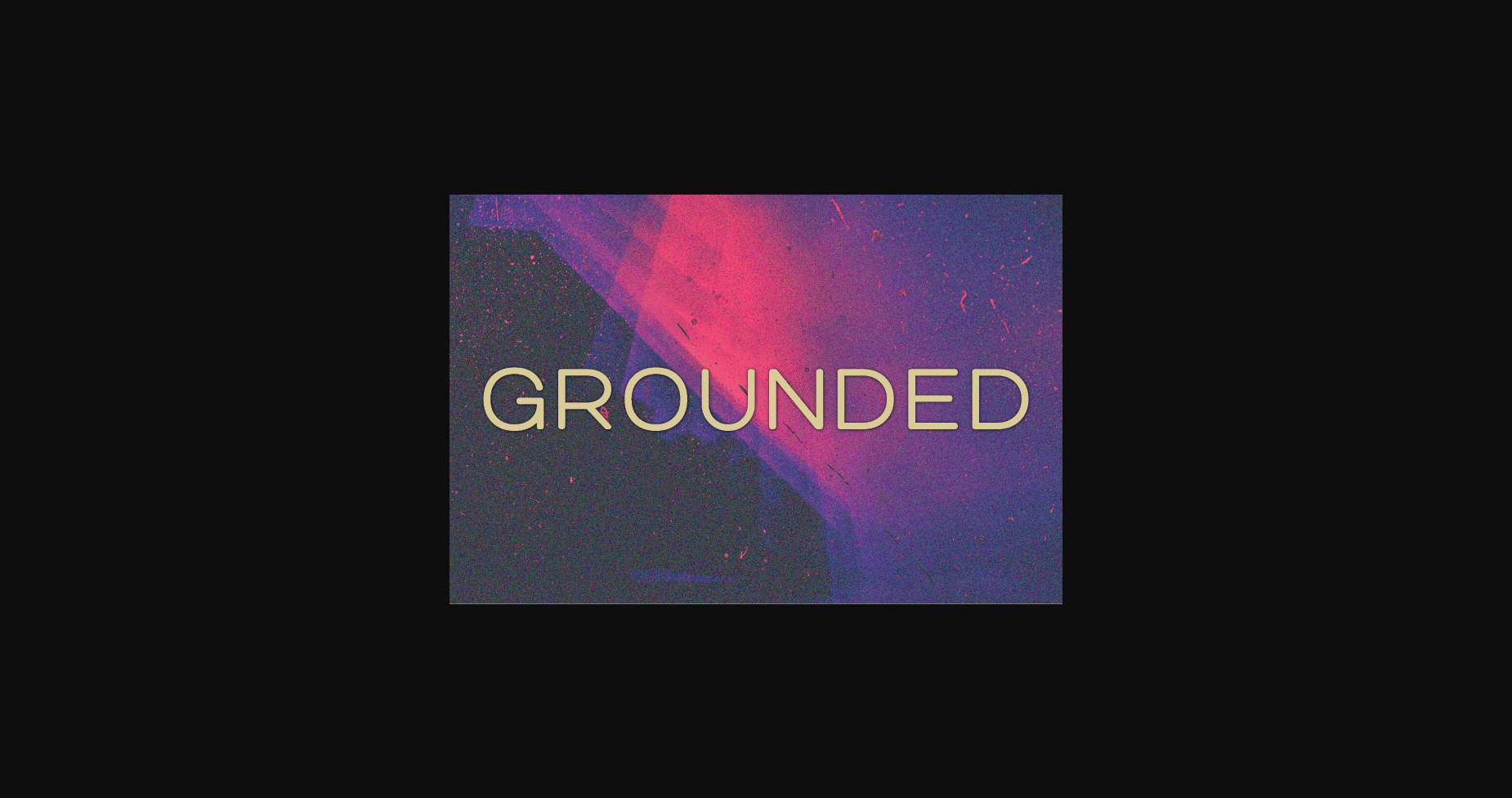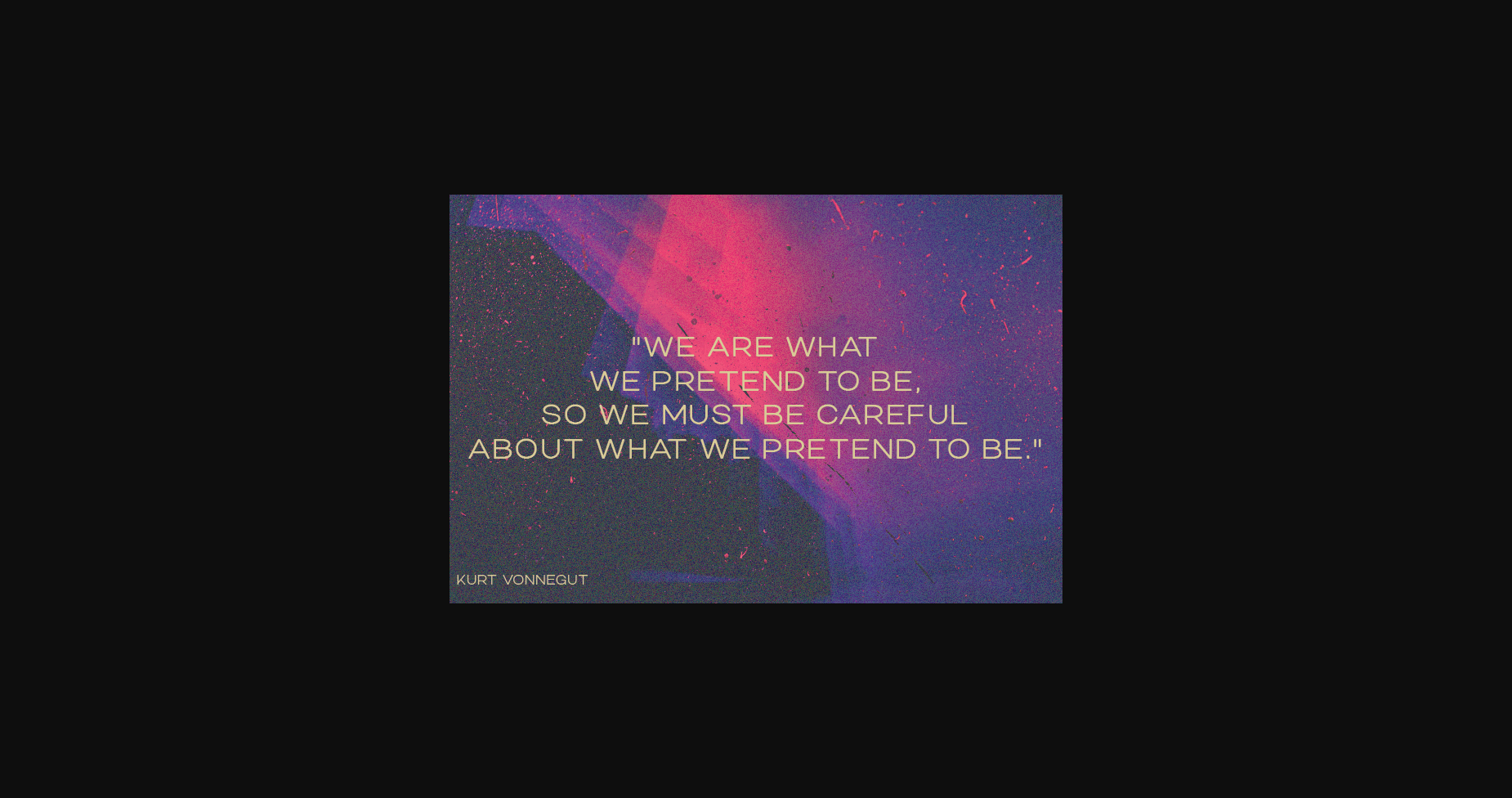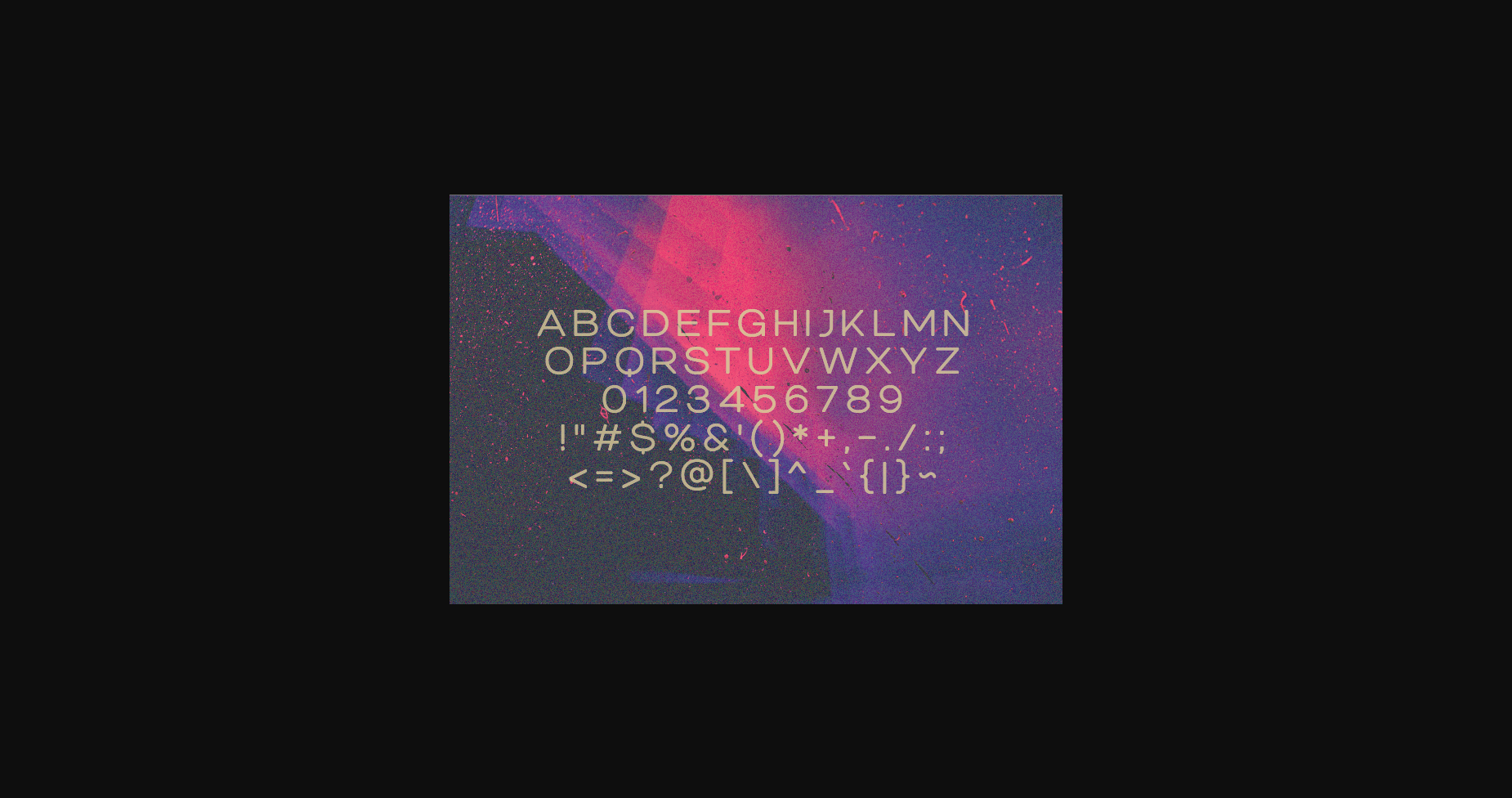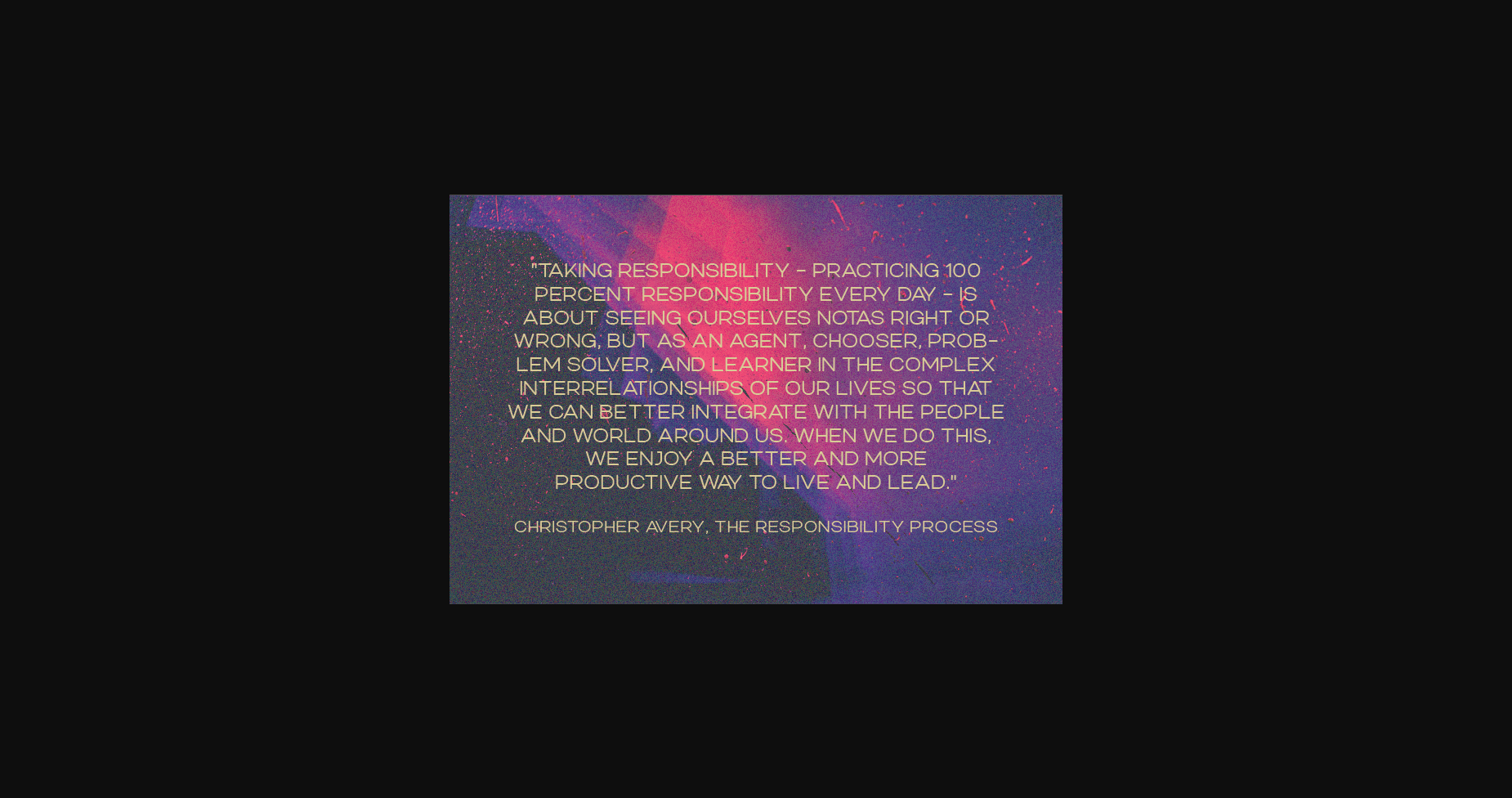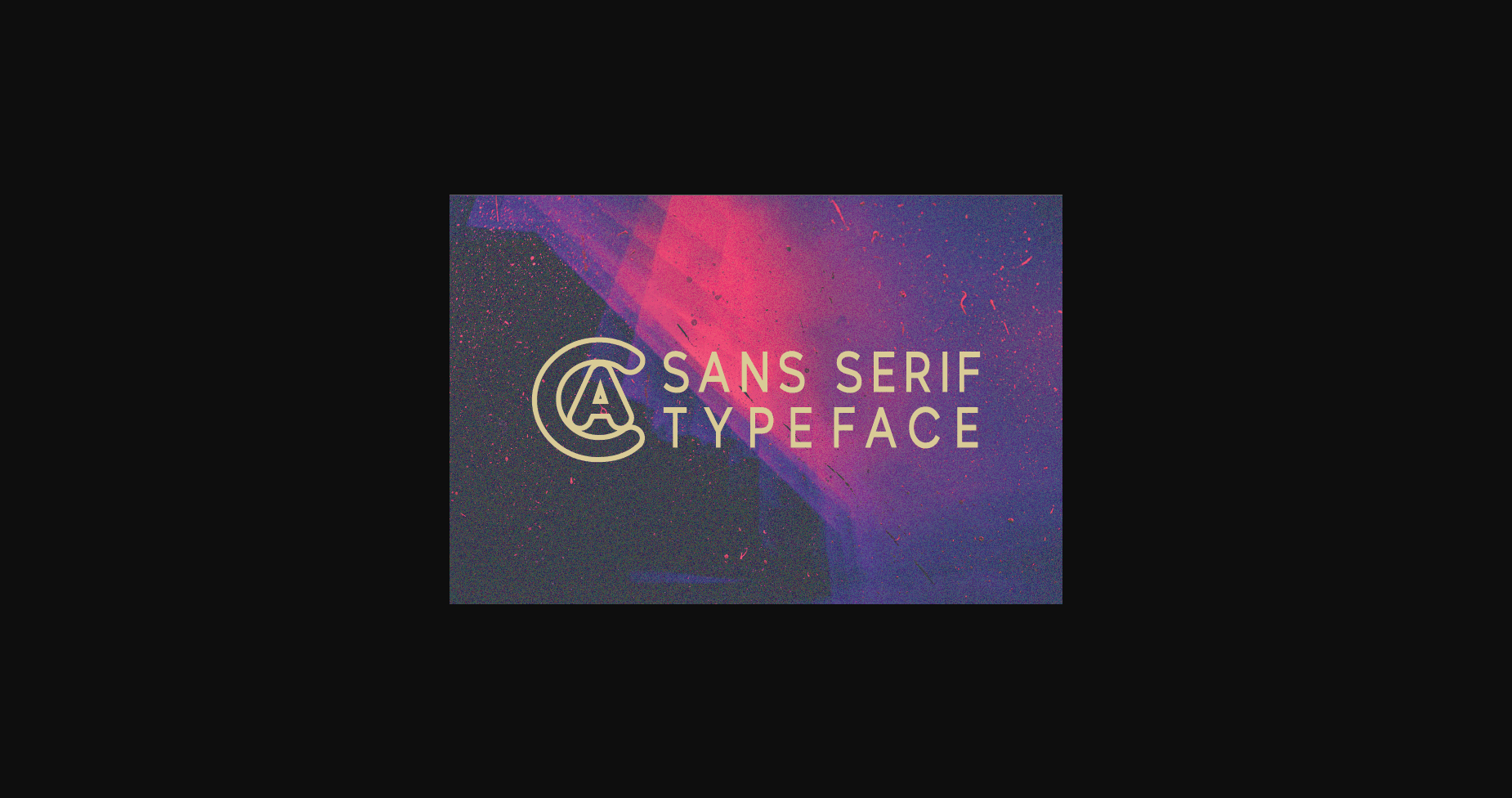
Grounded Font
About Grounded Font
Grounded is a modern, classy sans serif typeface. Extremely versatile, this typeface is perfect for logos, weddings, invitations, quotes, advertisements, print, magazines, and more!